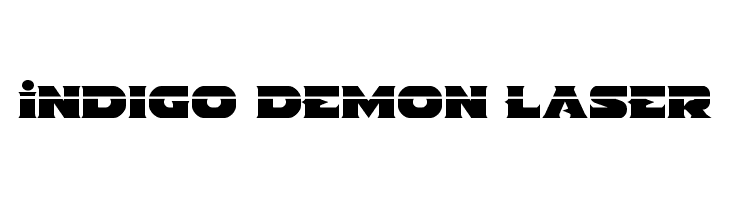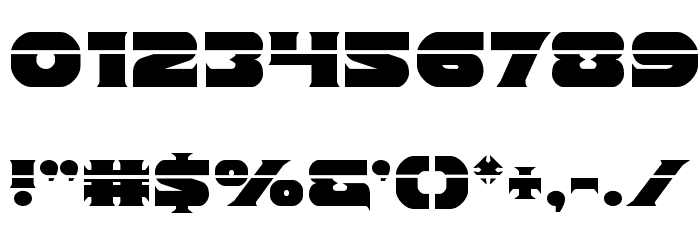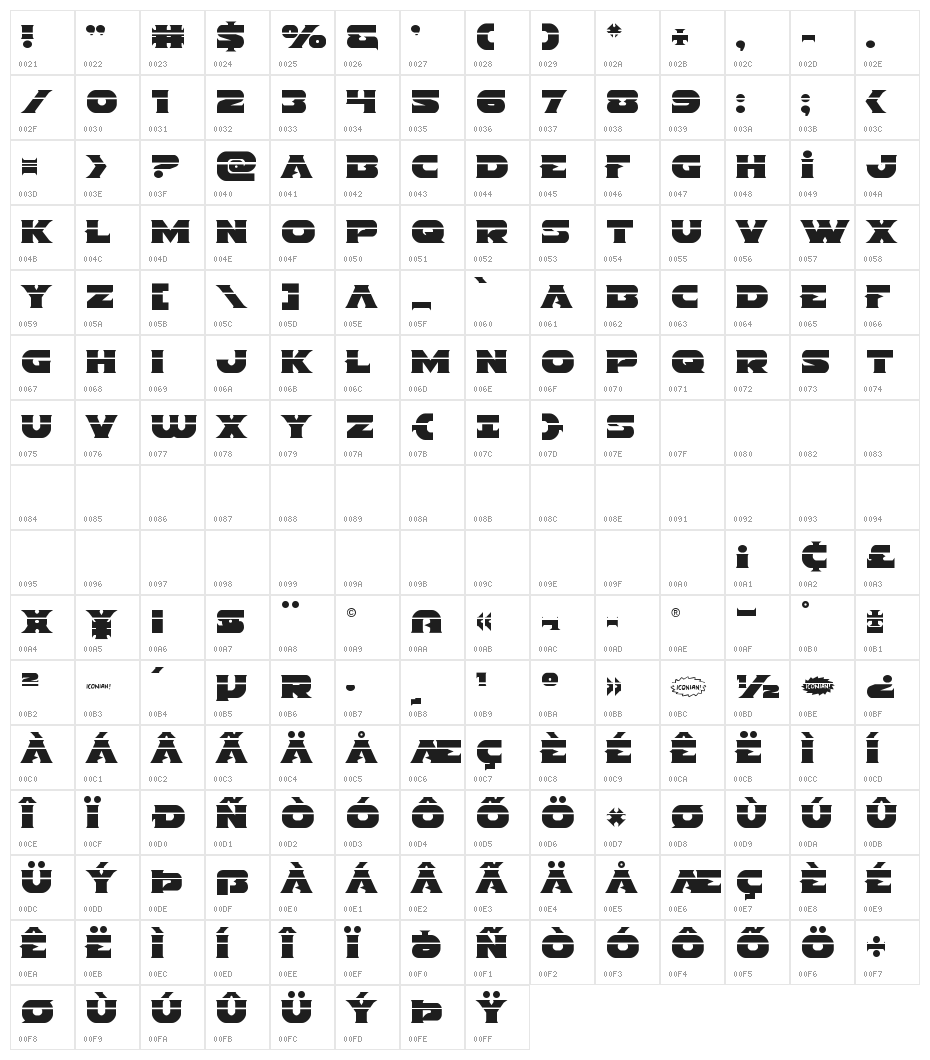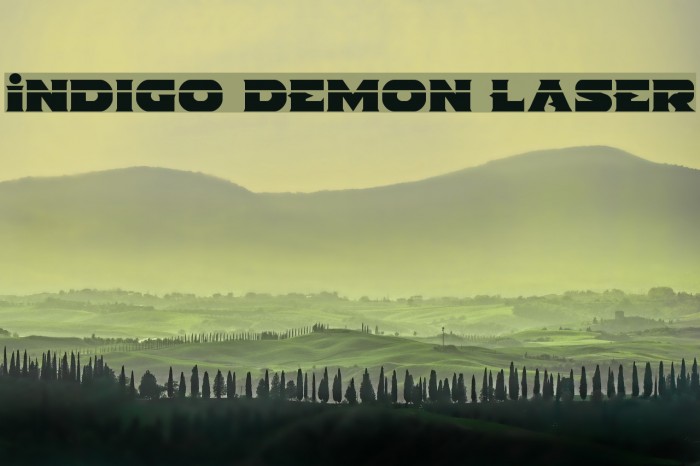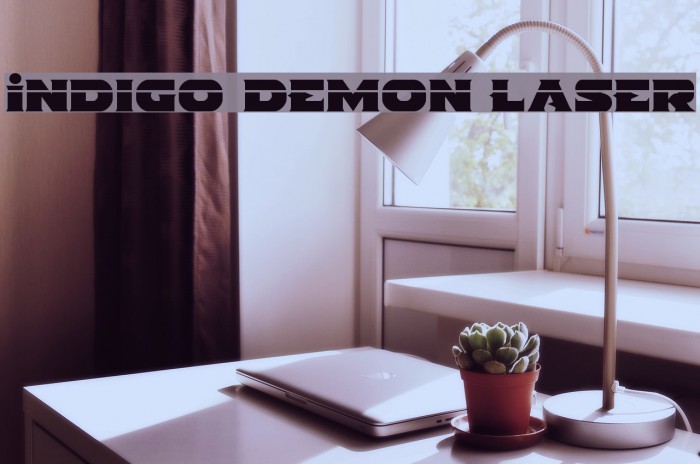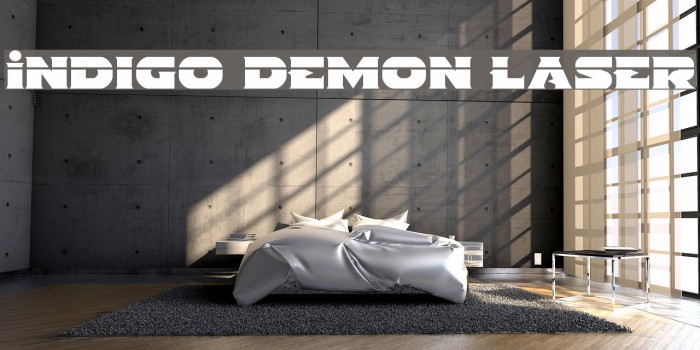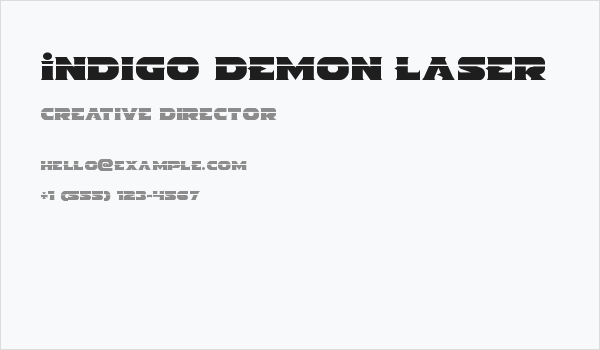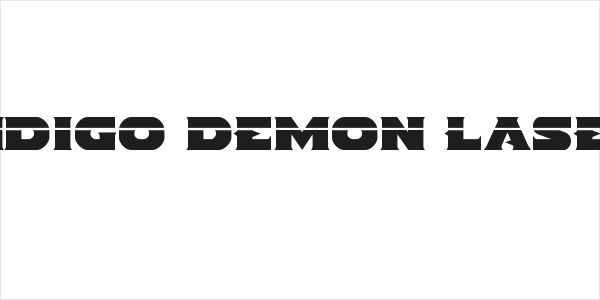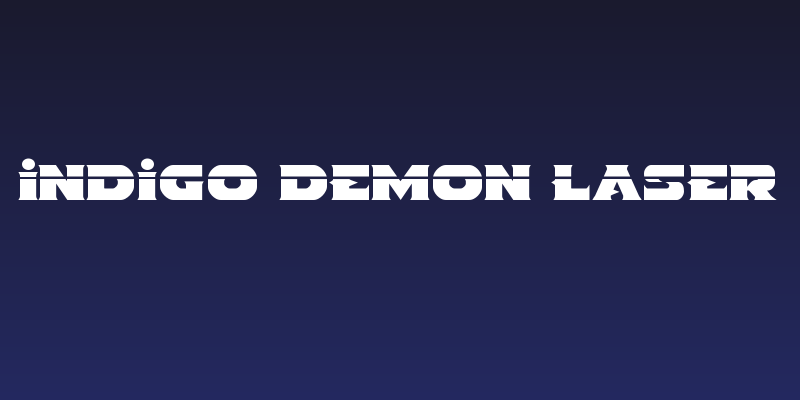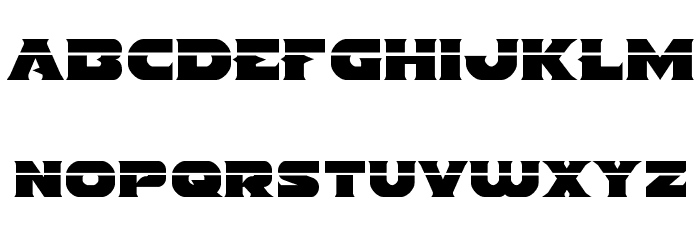
Indigo Demon Laser Font
Indigo Demon Laser Description
This font exhibits a bold and futuristic design, characterized by its sharp angles and geometric shapes. The letters are constructed with a strong emphasis on horizontal and vertical lines, creating a sense of stability and strength. The use of negative space within the characters adds a unique visual interest, making each letter stand out distinctly. The font's style is reminiscent of digital or sci-fi themes, suitable for projects that require a modern and edgy appearance. Its boldness ensures high visibility and impact, making it ideal for attention-grabbing headlines or titles.
| Proposed Projects | Ideal for sci-fi movie posters, video game titles, tech company logos, and futuristic-themed event flyers. |